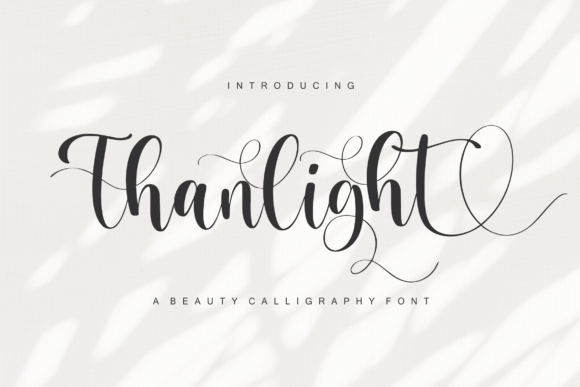
Take your designs to new heights with Thanlight, the captivating handwritten font that exudes elegance and charm. Crafted with love by qwrtypefoundry, Thanlight is the secret weapon you need to make your words shine. Whether you're a seasoned designer or just starting, Thanlight will elevate your projects with its graceful curves and sophisticated style.
Immerse yourself in Thanlight's world of endless possibilities. With its ability to transform ordinary text into captivating works of art, Thanlight is perfect for product packaging, branding projects, and social media posts. Let your imagination run wild as you use Thanlight to create stunning and memorable wedding invitations, magazine covers, posters, and more.
Thanlight is more than just a font; it's an emotional journey. Its flowing lines and delicate strokes will evoke a sense of elegance and timelessness in your designs. Experience the joy of crafting messages that resonate with your audience, leaving a lasting impression that will make them crave more.
Don't settle for ordinary fonts that blend into the background. Embrace Thanlight's charisma and let your words dance off the page. Thanlight is the perfect choice for those who dare to be different, who seek fonts that reflect their unique style and personality.